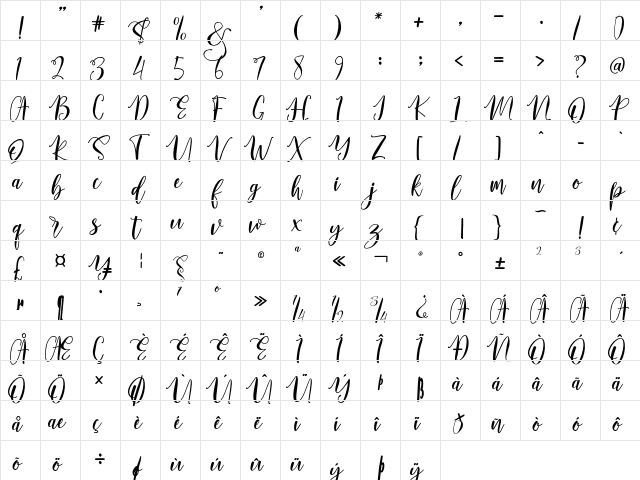
Lovely Buttering Script Regular
Design Context for Lovely Buttering Script Typeface
Lovely Buttering Script flows with the natural rhythm of handwritten lettering, making it ideal for designs that call for warmth and personal expression.
Font Pairing: Combine Lovely Buttering Script with a simple geometric sans for maximum contrast — the tension between flowing curves and clean structure is a classic typographic pairing.
Pro Tip: Use Lovely Buttering Script for short runs of text — names, titles, or taglines. Extended body copy in script faces tires the eye quickly.